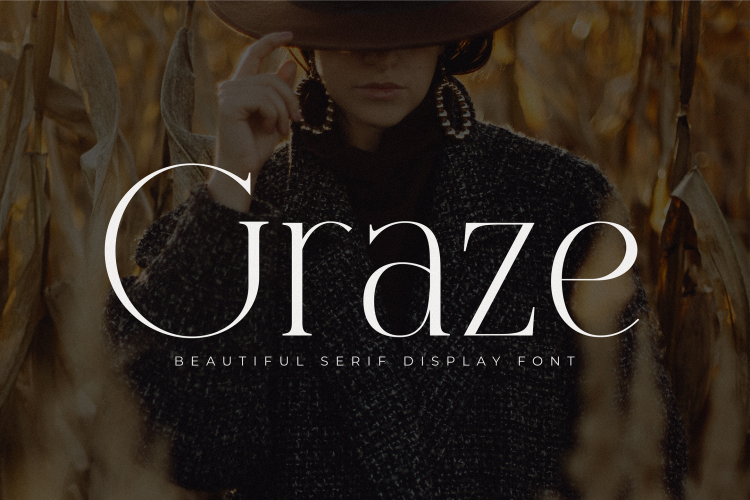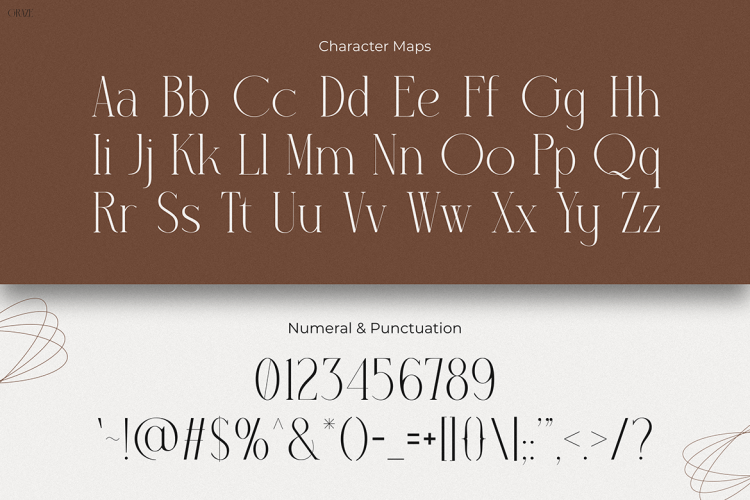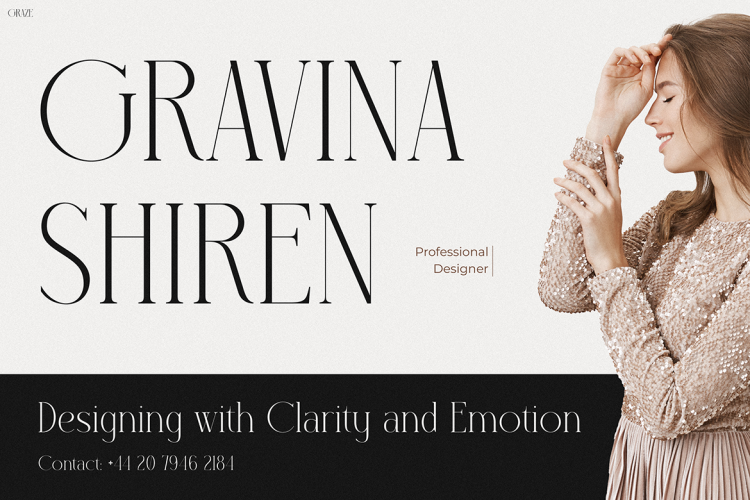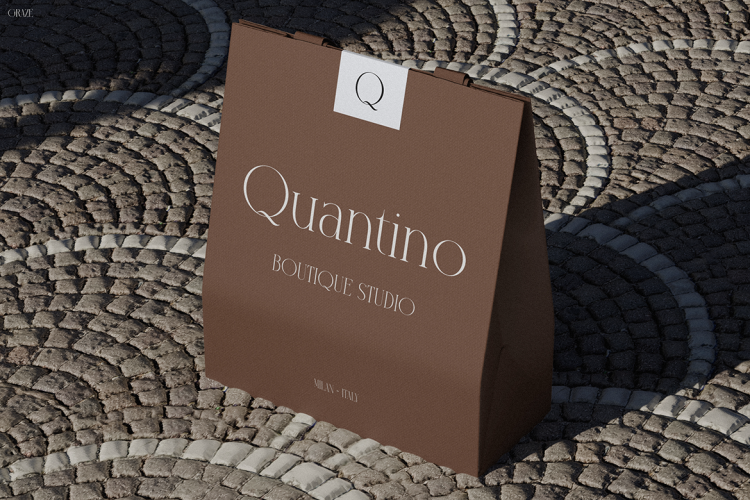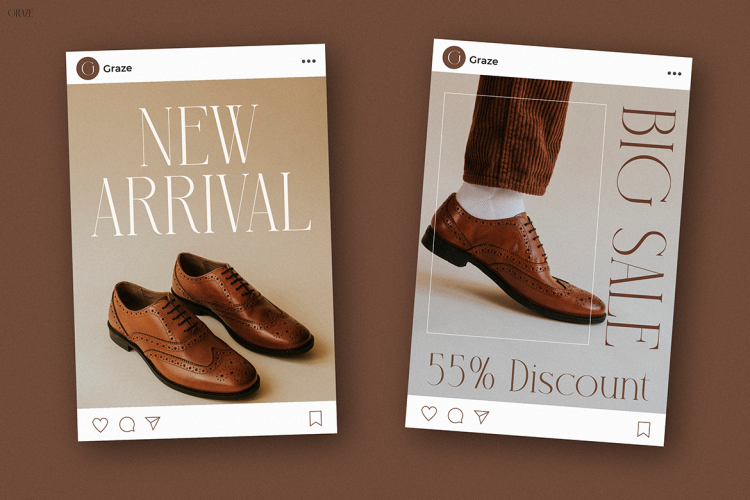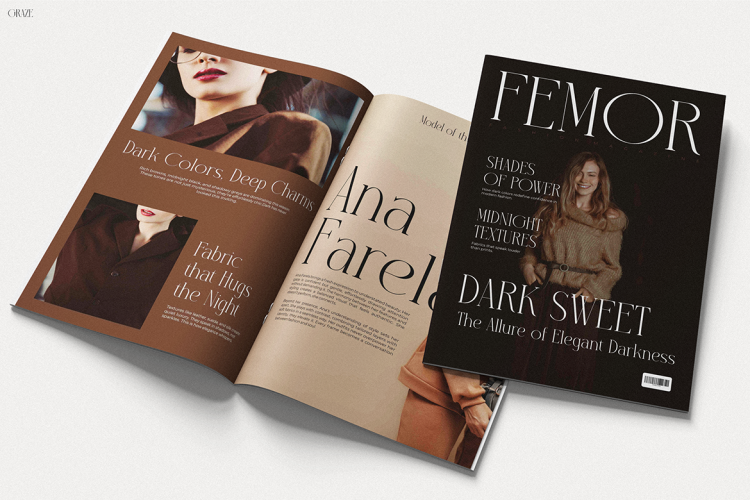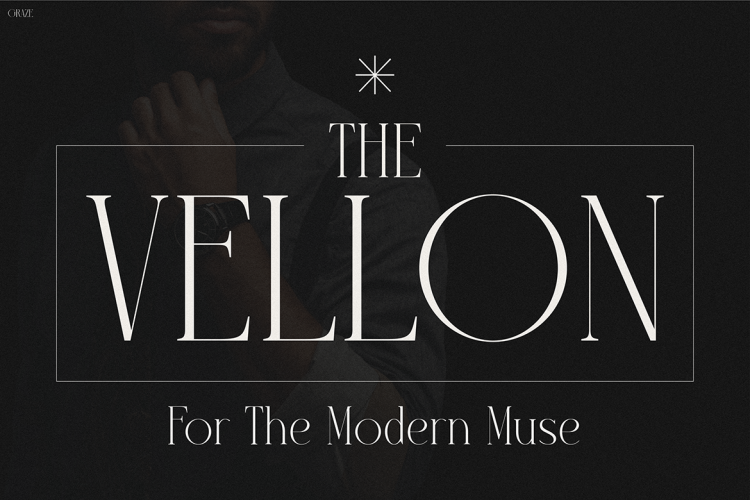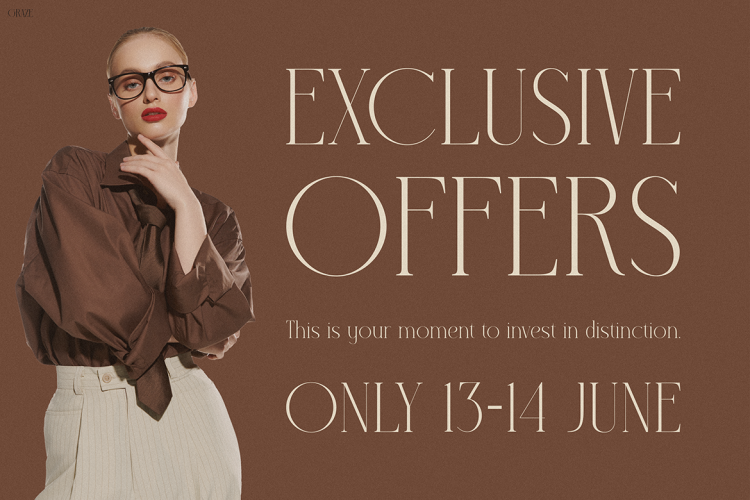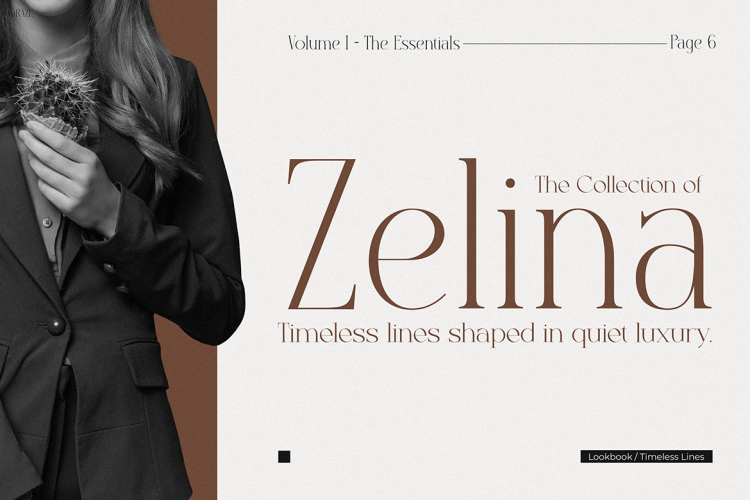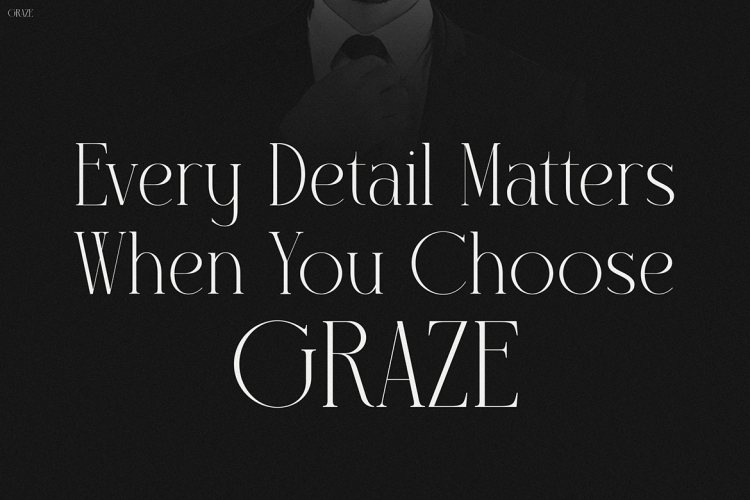
Instagram Font Graze โ Where Elegance Meets Modern Confidence
Instagram Font Graze is a captivating serif typeface that effortlessly blends timeless beauty with modern sophistication. Each letter is designed with precision, giving every project a sense of calm balance and visual luxury. Moreover, its sleek contrast, refined spacing, and graceful flow create a polished look that instantly elevates any design.
Graze is not just another fontโitโs a creative statement. Its subtle curves bring warmth, while the sharp serifs add structure and power. As a result, your words appear confident yet sophisticated. Whether youโre designing for social media, branding, or editorial work, this font turns ordinary layouts into elegant expressions of style.
Furthermore, Instagram Font Graze offers perfect readability and visual impact. Its mix of thin and thick strokes gives a dynamic rhythm to your text, while the proportions maintain harmony and clarity. Therefore, every letter feels intentional and beautifully balanced. With its refined aesthetic, Graze stands out as a must-have for creators who value elegance, artistry, and emotion in their typography.
Perfect For Designers with Refined Taste
Graze is ideal for designers, entrepreneurs, and brands who want to project sophistication. It works beautifully for fashion campaigns, luxury packaging, magazines, brand logos, and lifestyle promotions.
In addition, Instagram creators will love how Graze enhances their feed. It makes captions, quotes, and marketing visuals look curated and exclusive. Whether used in soft, minimal compositions or paired with moody photography, it brings depth and harmony. Besides that, its timeless elegance ensures it fits both modern and classic aesthetics.
Hence, if you aim to create a brand presence that looks professional and unforgettable, Graze is your perfect choice.
Turn Words into Art
Typography influences how people feelโand Instagram Font Graze gives your designs emotional depth and timeless charm. It invites your audience to pause, admire, and engage. So, whether youโre refreshing your identity or building something new, Graze helps your work look refined and high-end.
โจ Elevate your message. Choose Grazeโand let your designs speak with confidence and class.